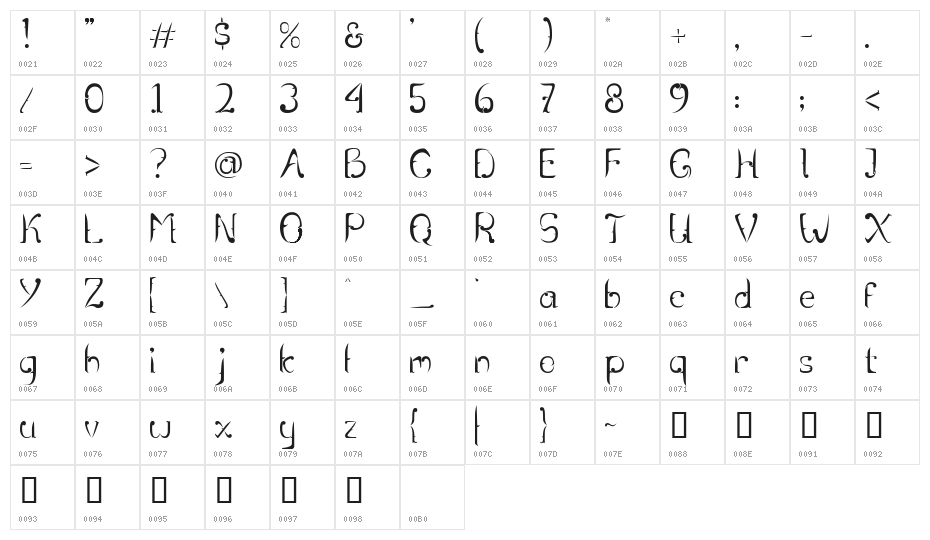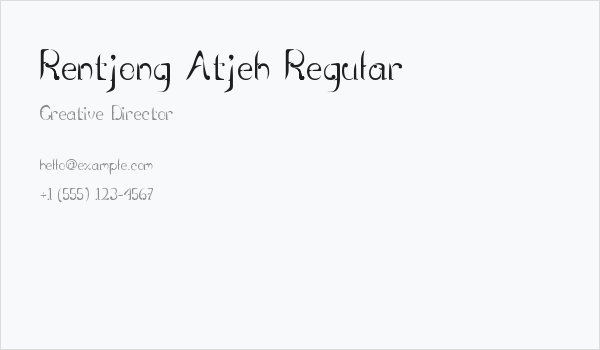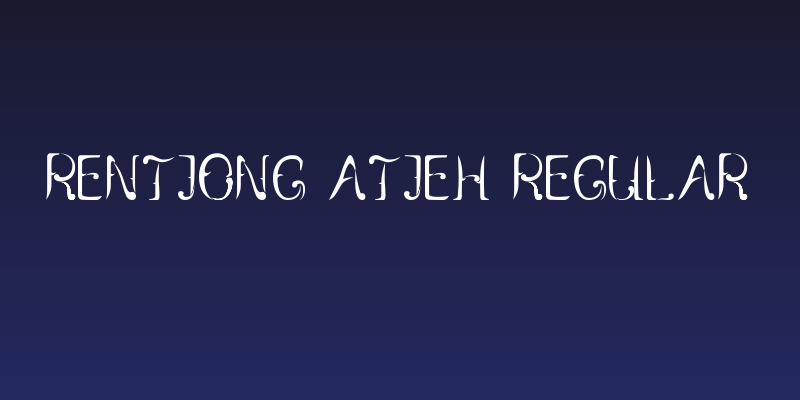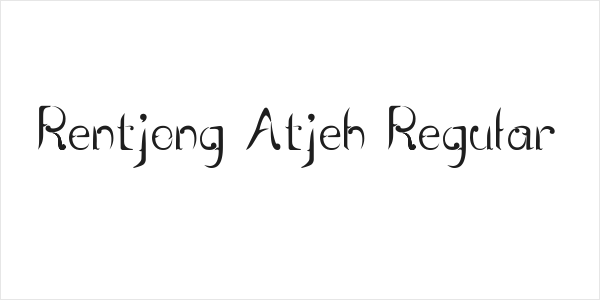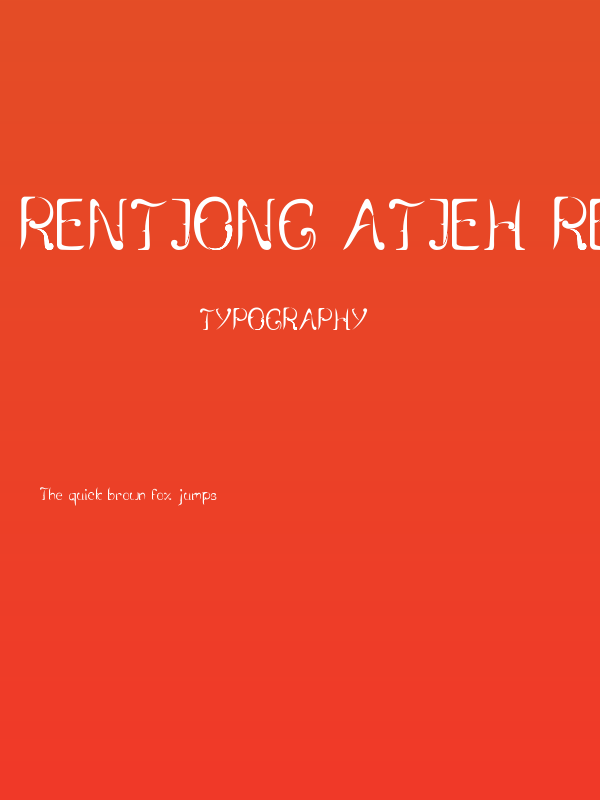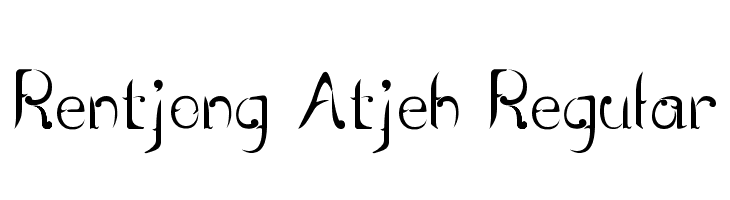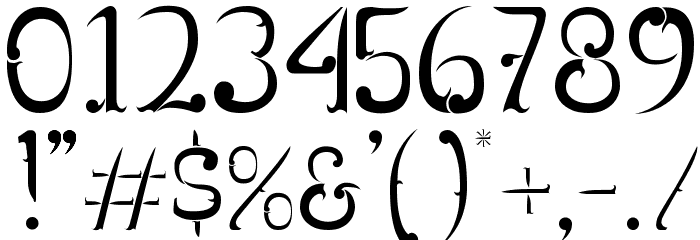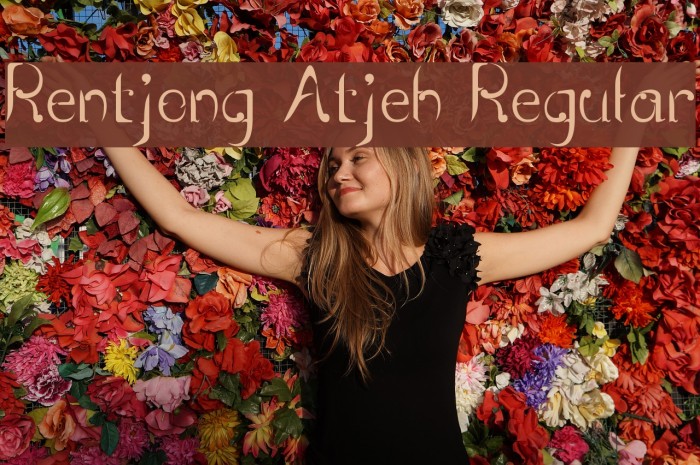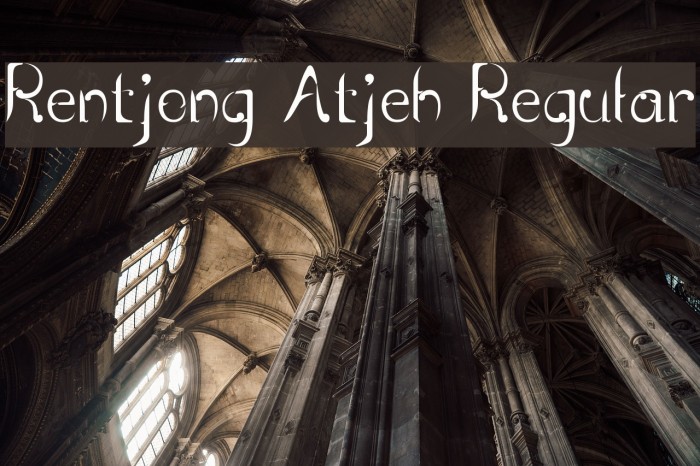
Rentjong Atjeh Regular Font
Rentjong Atjeh Regular Description
This font features a unique blend of traditional and modern elements, characterized by its distinct, sharp serifs and elegant curves. The uppercase letters exhibit a bold presence with intricate detailing, while the lowercase letters maintain a consistent flow with a slightly more delicate touch. Numbers are crafted with a similar attention to detail, ensuring readability and style. The special characters are designed to complement the overall aesthetic, adding a touch of sophistication. This font's artistic flair makes it suitable for projects that require a decorative yet readable typeface.
| Proposed Projects | Ideal for branding, invitations, posters, and any project that requires a decorative and sophisticated typeface. |